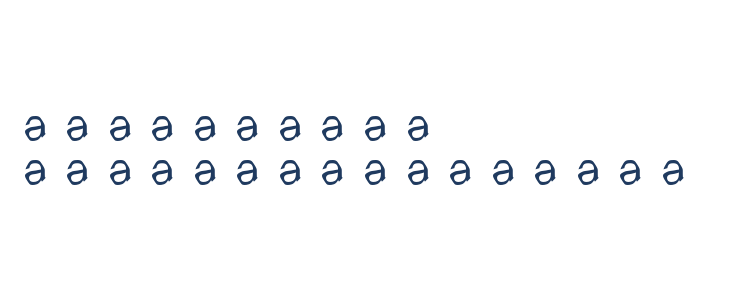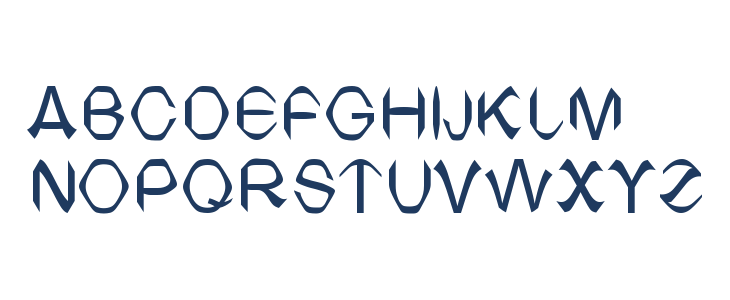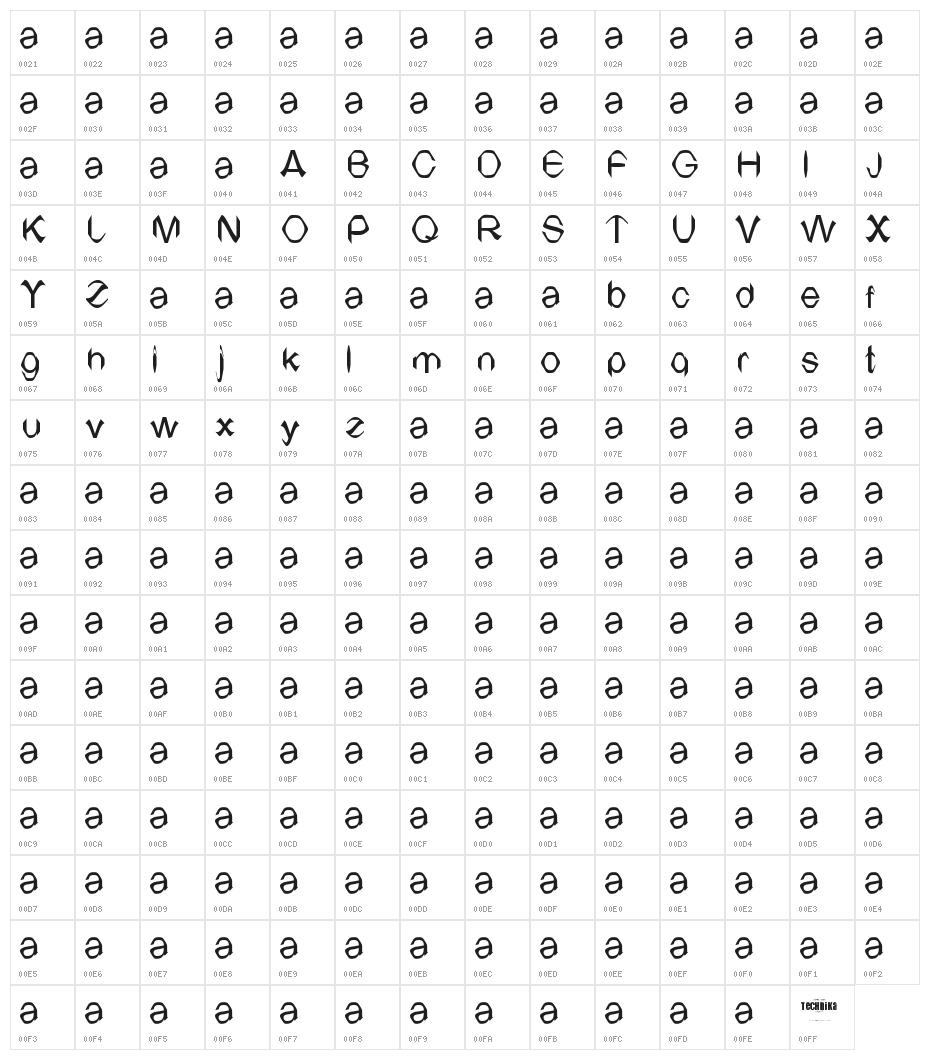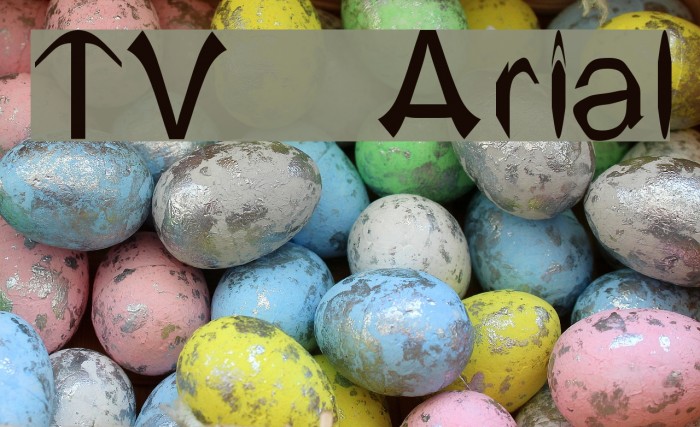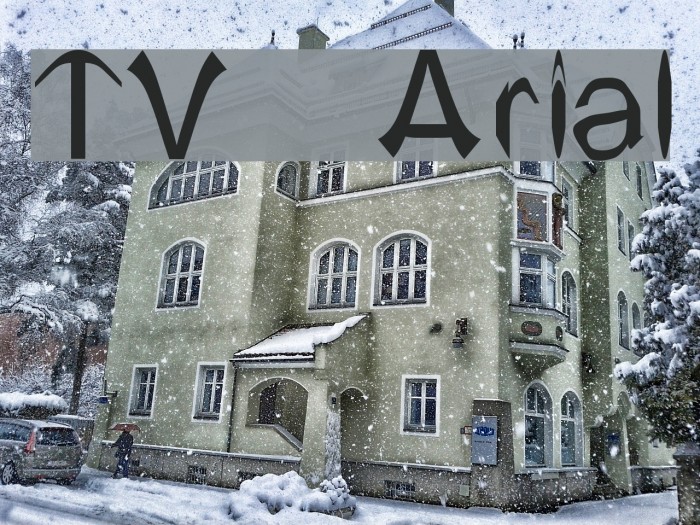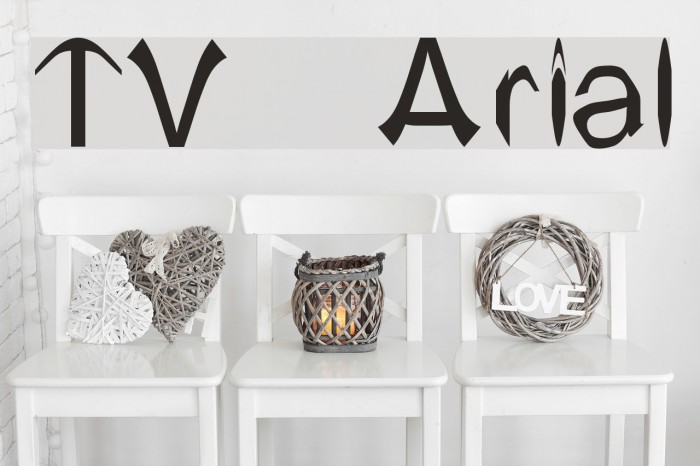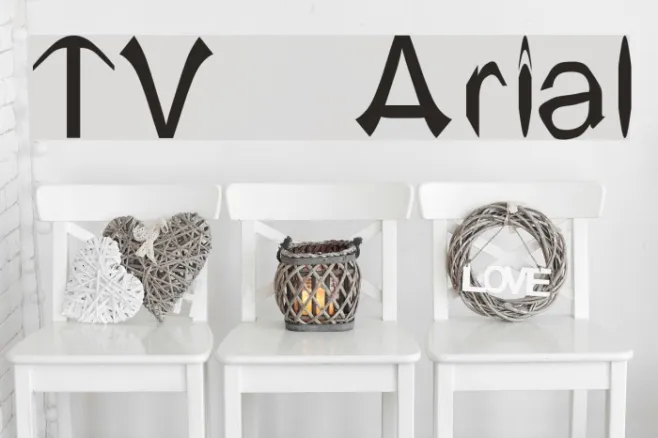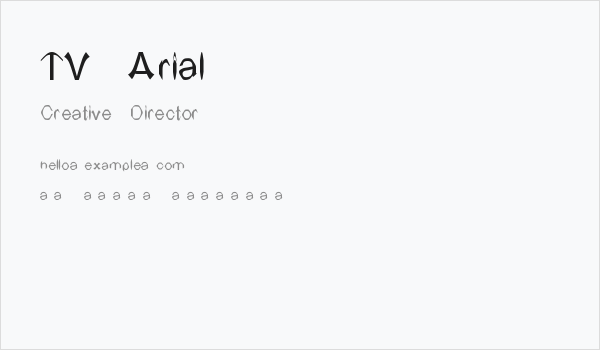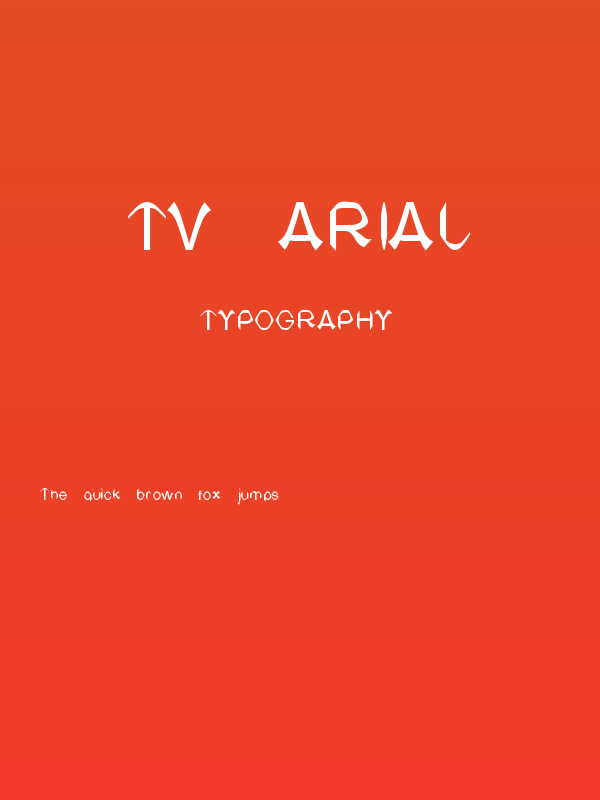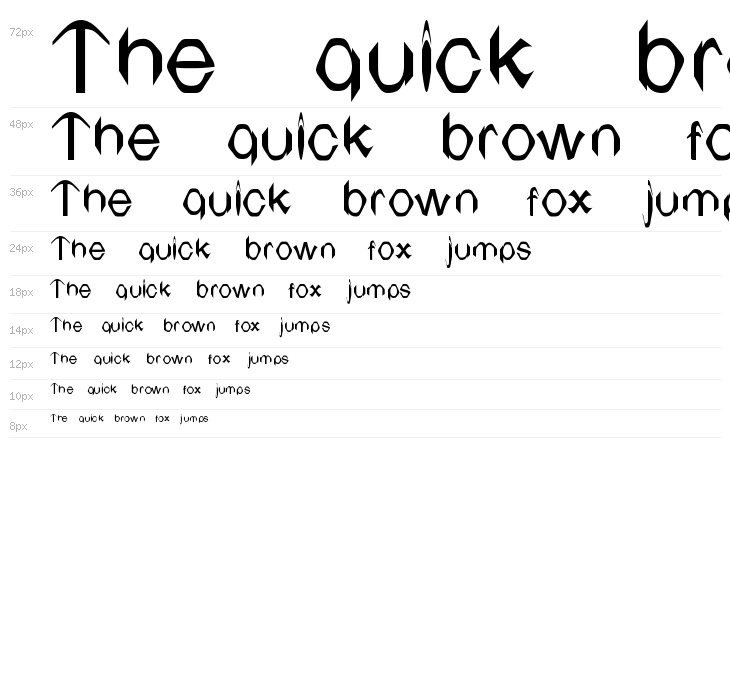
TV Arial Font
TV Arial Description
This font features a unique and striking design with angular and geometric elements. Each character is crafted with sharp edges and a bold presence, creating a futuristic and dynamic appearance. The uppercase letters exhibit a consistent height and width, while the lowercase letters maintain a similar style with slightly more curvature. The numbers and special characters follow the same design principles, ensuring a cohesive look across all glyphs. The overall aesthetic is modern and edgy, making it suitable for projects that require a bold statement.
| Proposed Projects | Ideal for sci-fi themed designs, technology branding, video game titles, and modern advertising campaigns. |